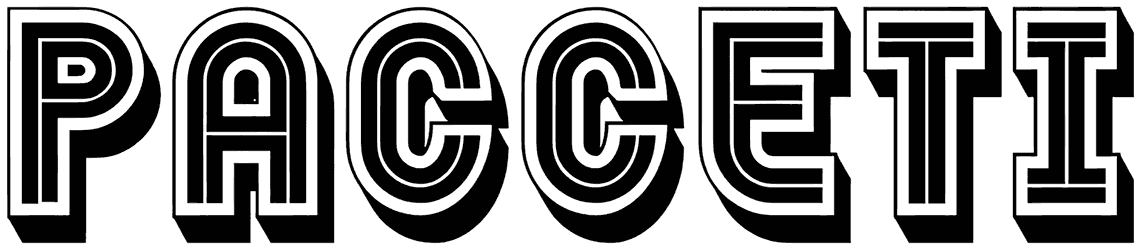
Pacceti is a 3D font that comes with an eye-grabbing style and engages the audience immediately after the first glance. This all-caps retro font can be really helpful for designing high-end graphic content like posters, digital banners, flyers, menus, or editorial projects. Since this inline font adds a sense of classic, dynamic, jauntiness, and exotic, the customers can’t ignore your work.